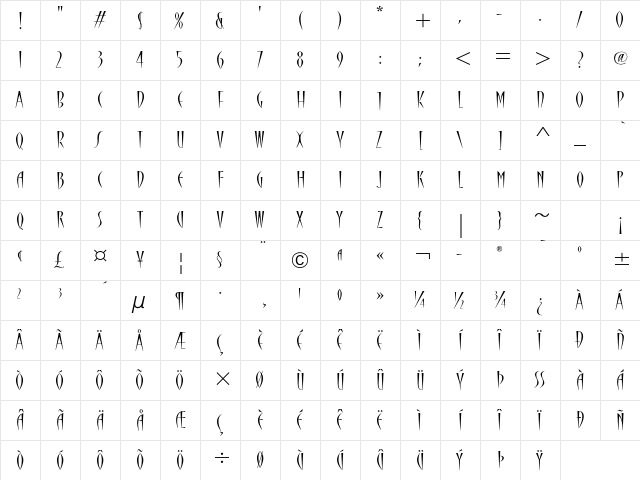
Cherie ITC Std Regular
| Designer | Teri Kahan |
Design Context for Cherie ITC Std Typeface
Cherie ITC Std is a composed and adaptable typeface that performs quietly and consistently across a wide range of design contexts.